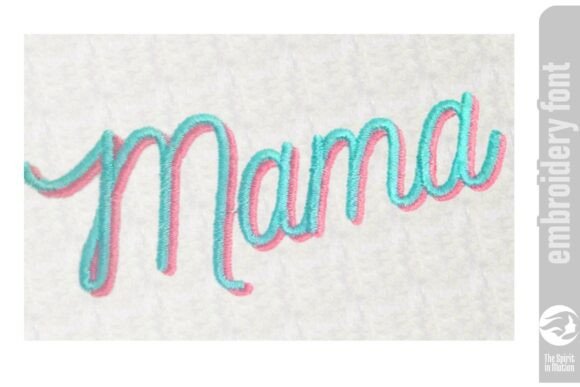
Nickainley Shadow Embroidery Font - L
Nickainley Shadow is a smooth and stylish monoline script embroidery font with a modern handwritten feel, also featuring a shadow. Its clean, flowing lines make it ideal for names, quotes, gifts, and decorative stitching. This versatile font adds charm and personality to any project, from apparel to heartfelt keepsakes.